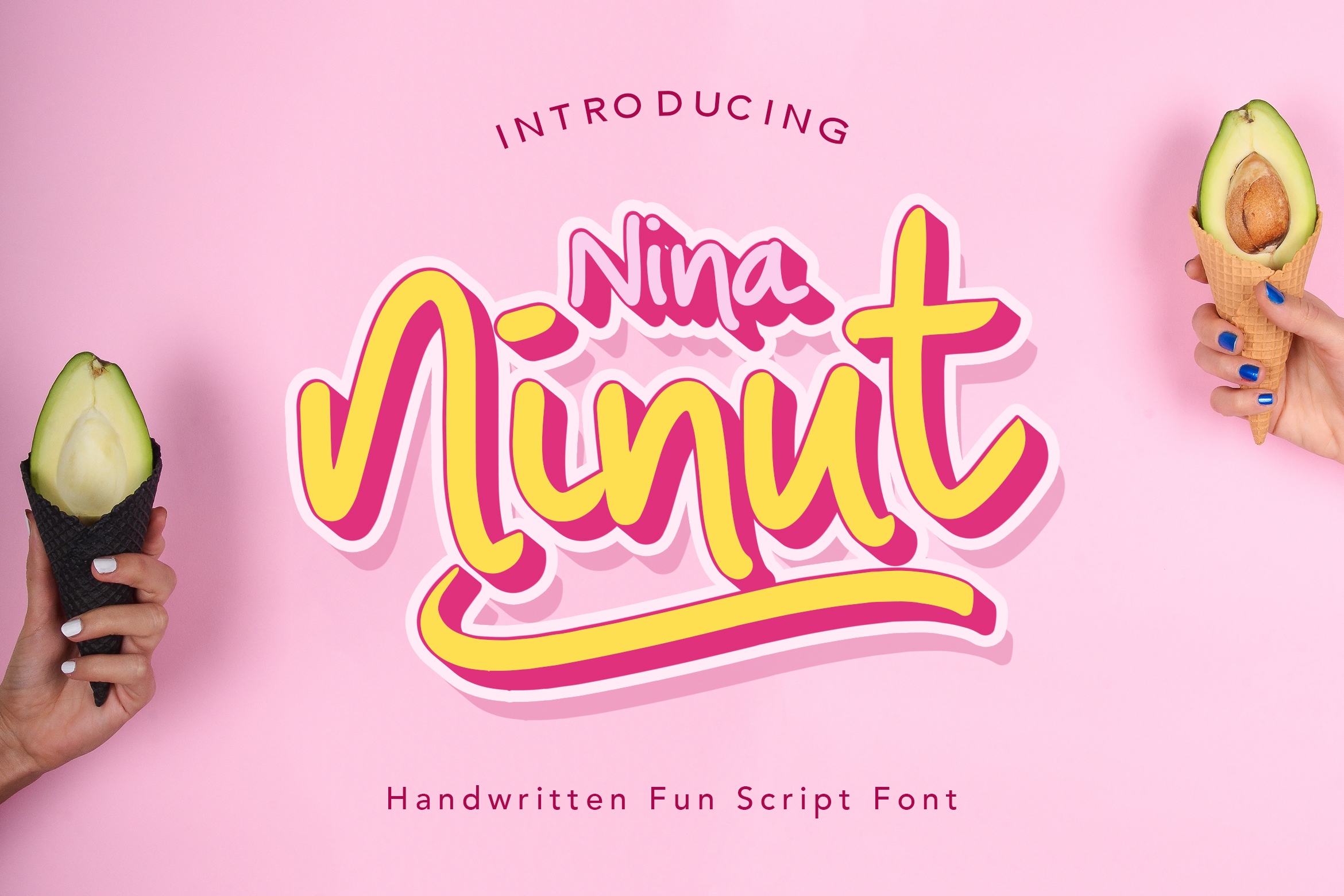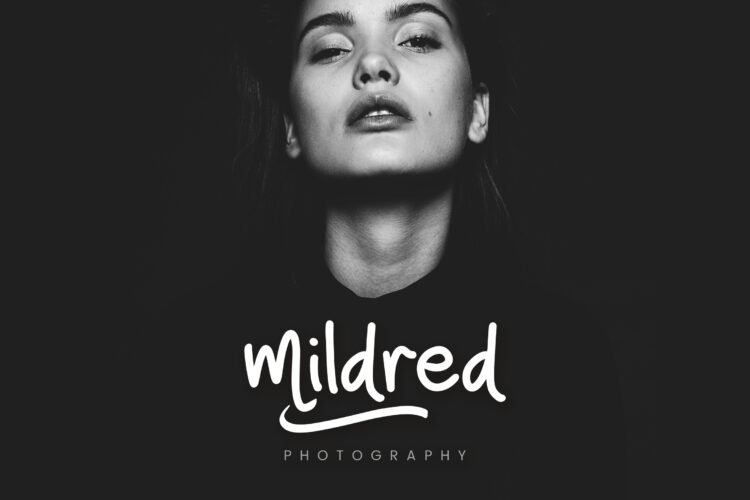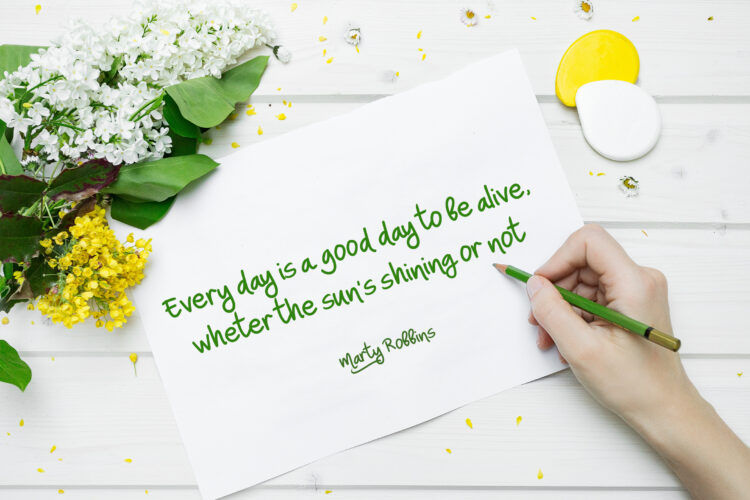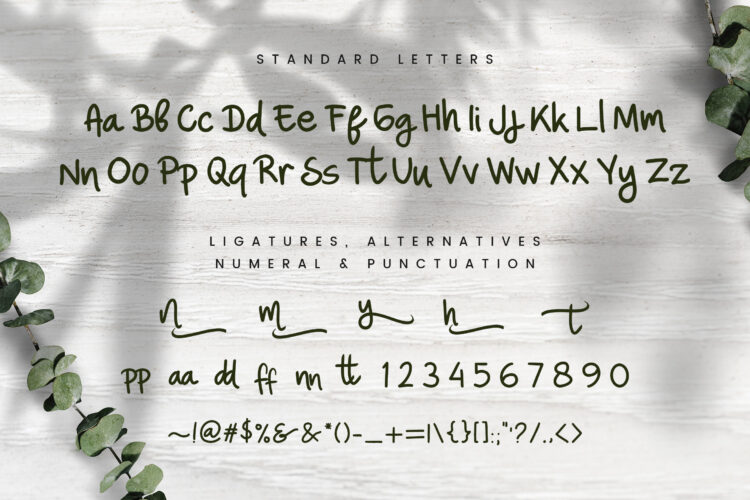
Offering a product can’t only depend on its product value, it is also about the way you present it beautifully. Introducing to you Nina Ninut, a handcrafted fun script font that will make your brand or product more beautiful. This font is suitable for any design needs, such as logo, quote, book, banner, poster, print media, promotion, business card, profile, fashion, make-up and many more.
A package of this font consists of a set of alphabets in uppercase and lowercase letters, numbering and punctuation. This package also includes some alternatives and ligatures to make your text or display creation to be more stylish. The font is only available in the OTF format file.
Main Features:
• Uppercase & Lowercase letters
• Numbering and Punctuation
• Ligatures
• Alternative fonts
Nina Ninut – Fun Handwritten Font